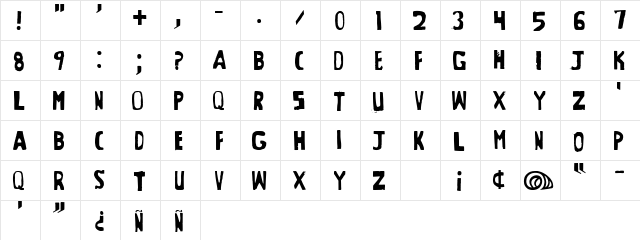
Beltway Prophecy Irregular
Design Context for Beltway Prophecy Typeface
Beltway Prophecy is a composed and adaptable typeface that performs quietly and consistently across a wide range of design contexts.